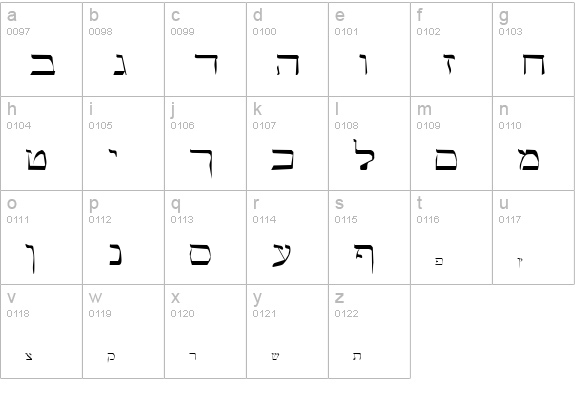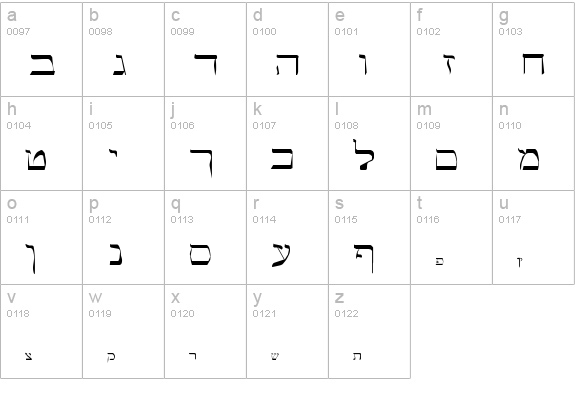
Vilner Font Details
Introducing Vilner, a stunningly beautiful font that combines elegance with a touch of modernity. With its clean lines and intricate details, Vilner is perfect for adding a sophisticated and refined touch to any design project. This versatile font offers a wide range of characters, allowing you to create unique and eye-catching typography. From its graceful uppercase letters to its delicate lowercase forms, every detail of Vilner has been carefully crafted to perfection. But what truly sets Vilner apart is its availability as a free download. Yes, you heard it right! Vilner is freely available to download at FontsMarket.com, making it accessible to designers and creatives around the world. Whether you're working on a logo design, branding, packaging, or any other creative endeavor, Vilner will elevate your work to new heights. Its timeless appeal and contemporary charm make it a must-have font for those seeking to make a lasting impression. So, don't miss out on the opportunity to add Vilner to your font collection. Head over to FontsMarket.com and grab this amazing font for free. Unleash your creativity and let Vilner transform your designs into works of art.